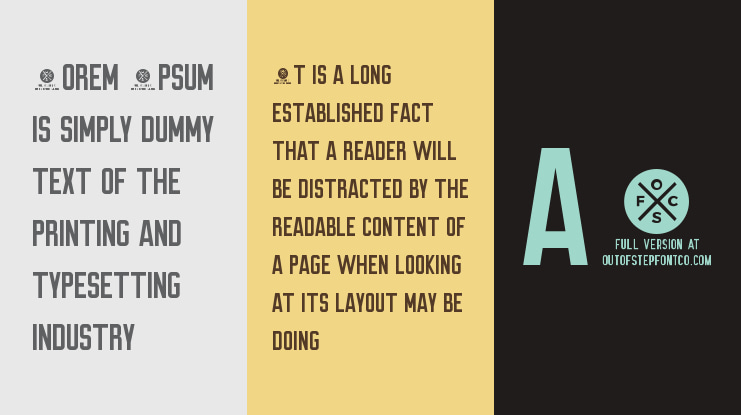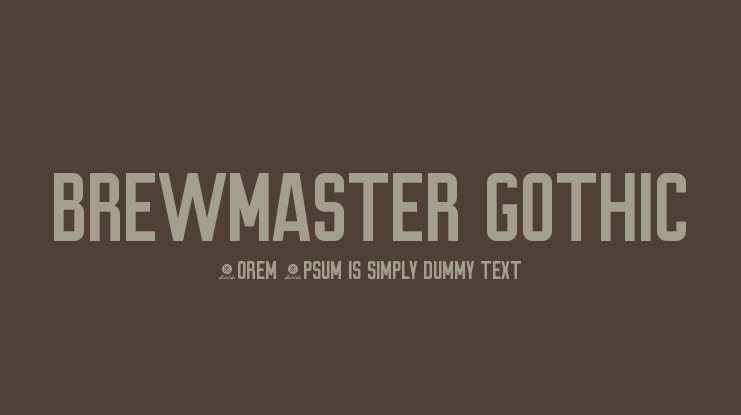
Brewmaster Gothic Font
In our hometown, there is a brew pub with a huge outdoor mural featuring its name. The brew pub name is painted in 8-foot tall letters on the brick facade over it's outdoor patio. To create Brewmaster Gothic, we took inspiration from that mural and applied it to our Turbonacular font, replacing the rounded edges with square corners and angles lines.
The end result is a firm, structured gothic with a lot of character, a huge complement of accented and special characters, full punctuation set, and an alternate set of uppercase characters in the lowercase.